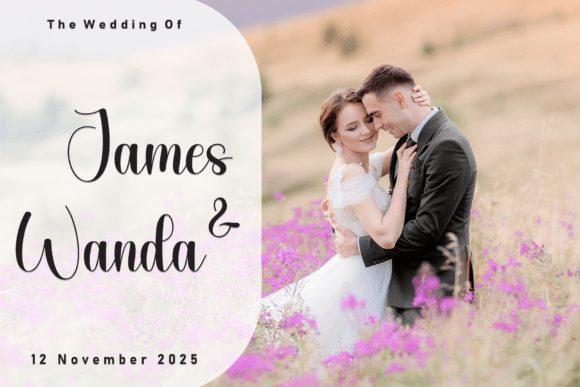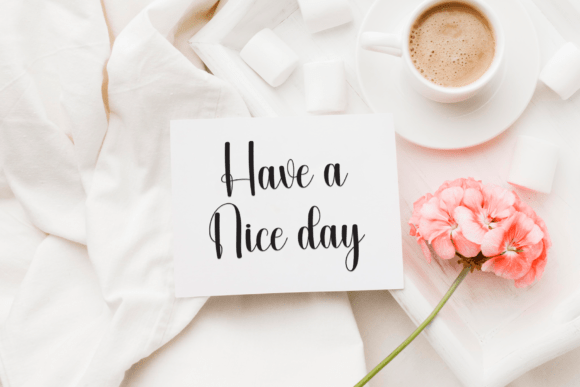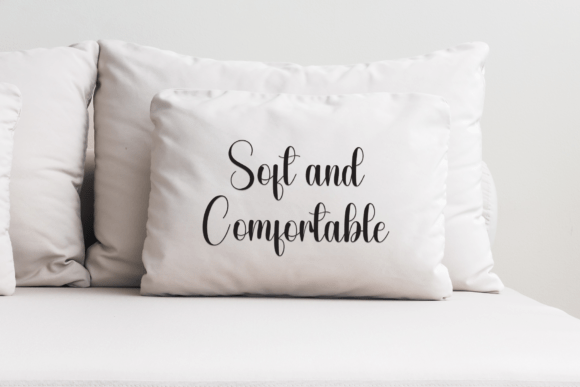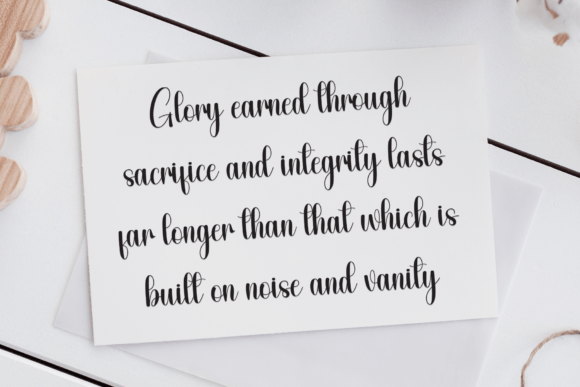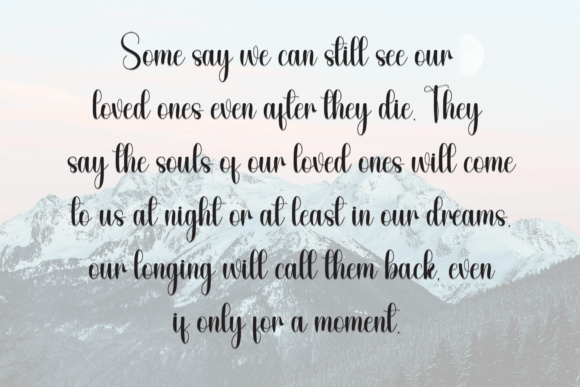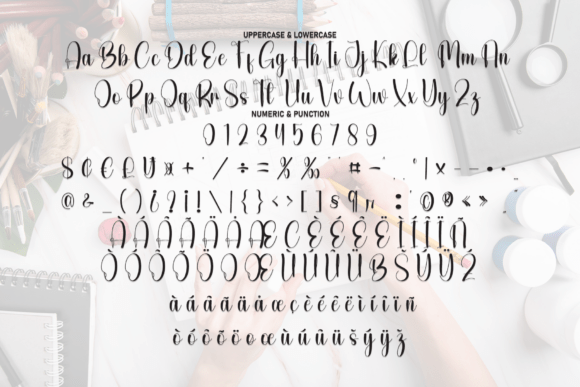
Introduction to Drawing Sketchy Font
Introducing a charmingly playful and subtly tender handwritten script font designed to breathe life into your creations.
This delightful font is the perfect choice for crafting enchanting wedding invitations, heartfelt greetings cards, or infusing a touch of whimsy into any design endeavor The neat and friendly aesthetics of the font emanate an authentic, fun-filled atmosphere, making it a compelling choice for elements that require a dash of joy and cheer.